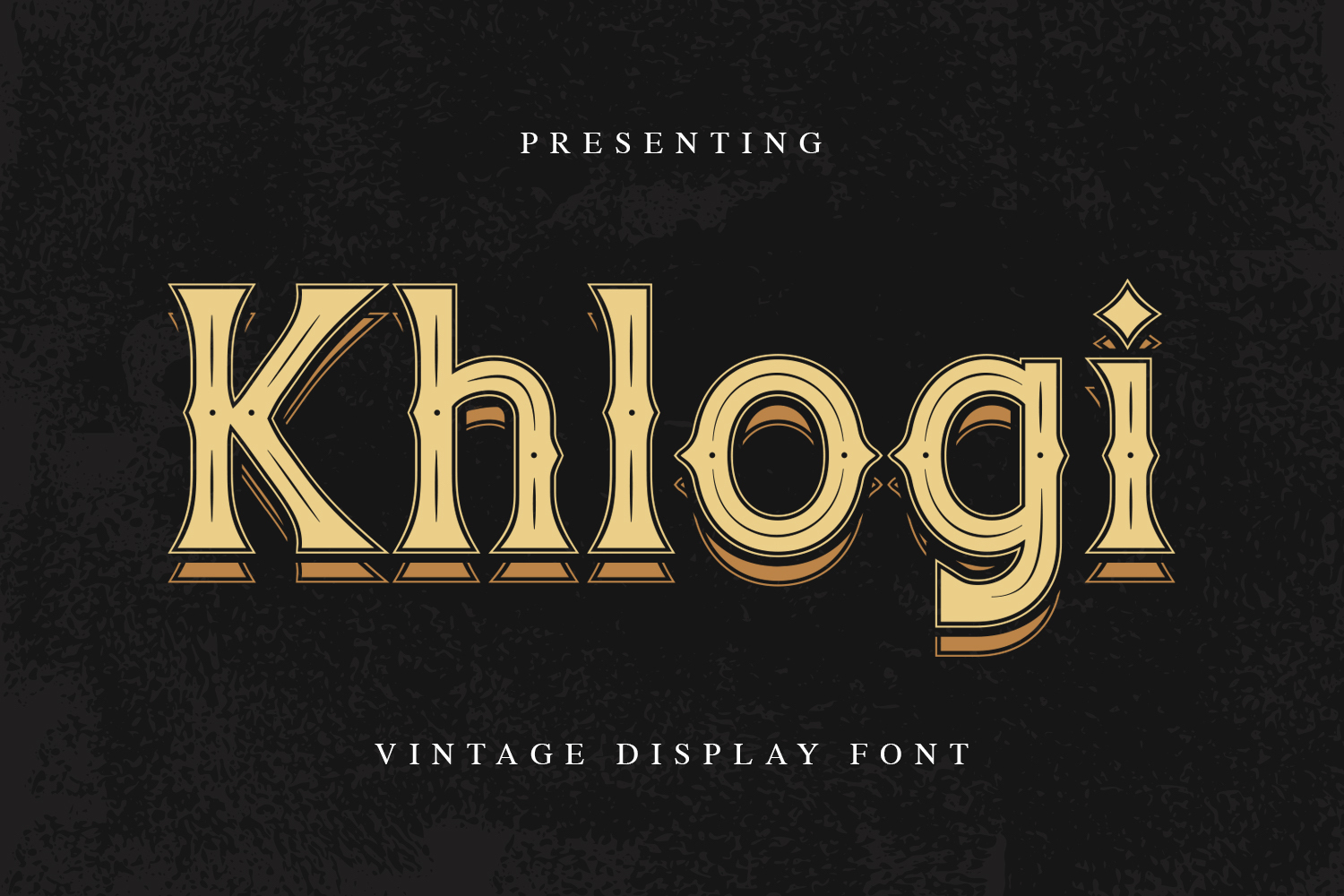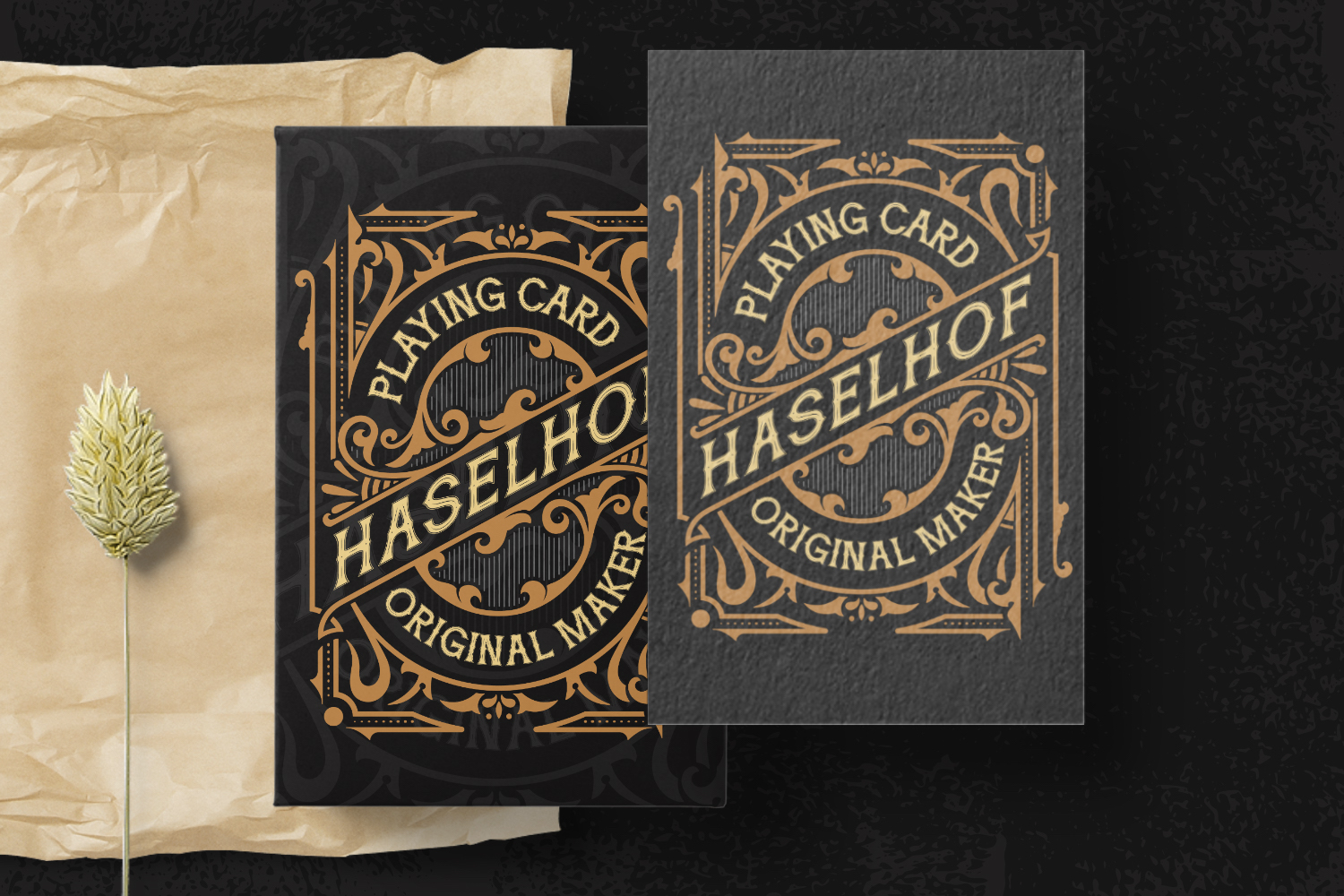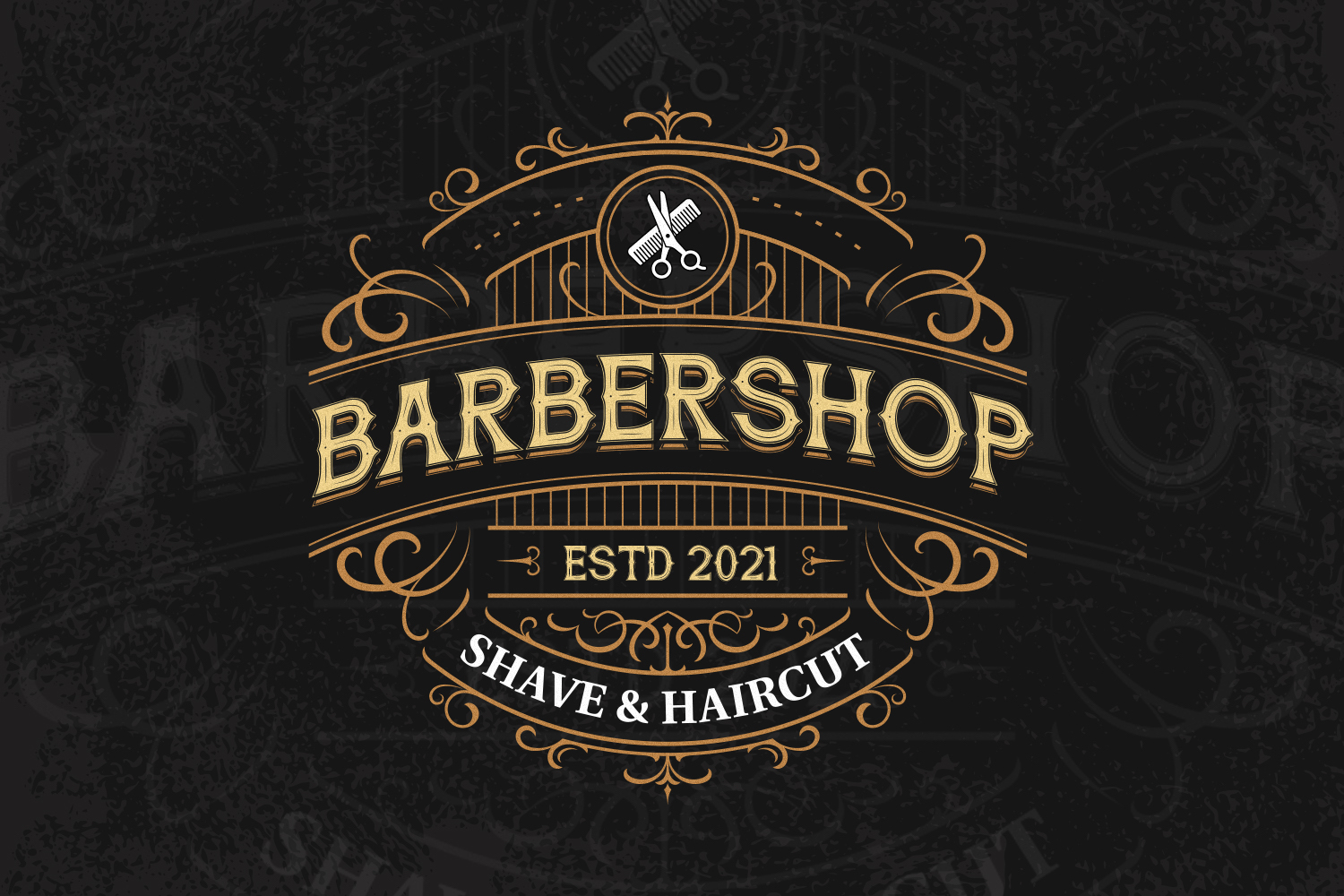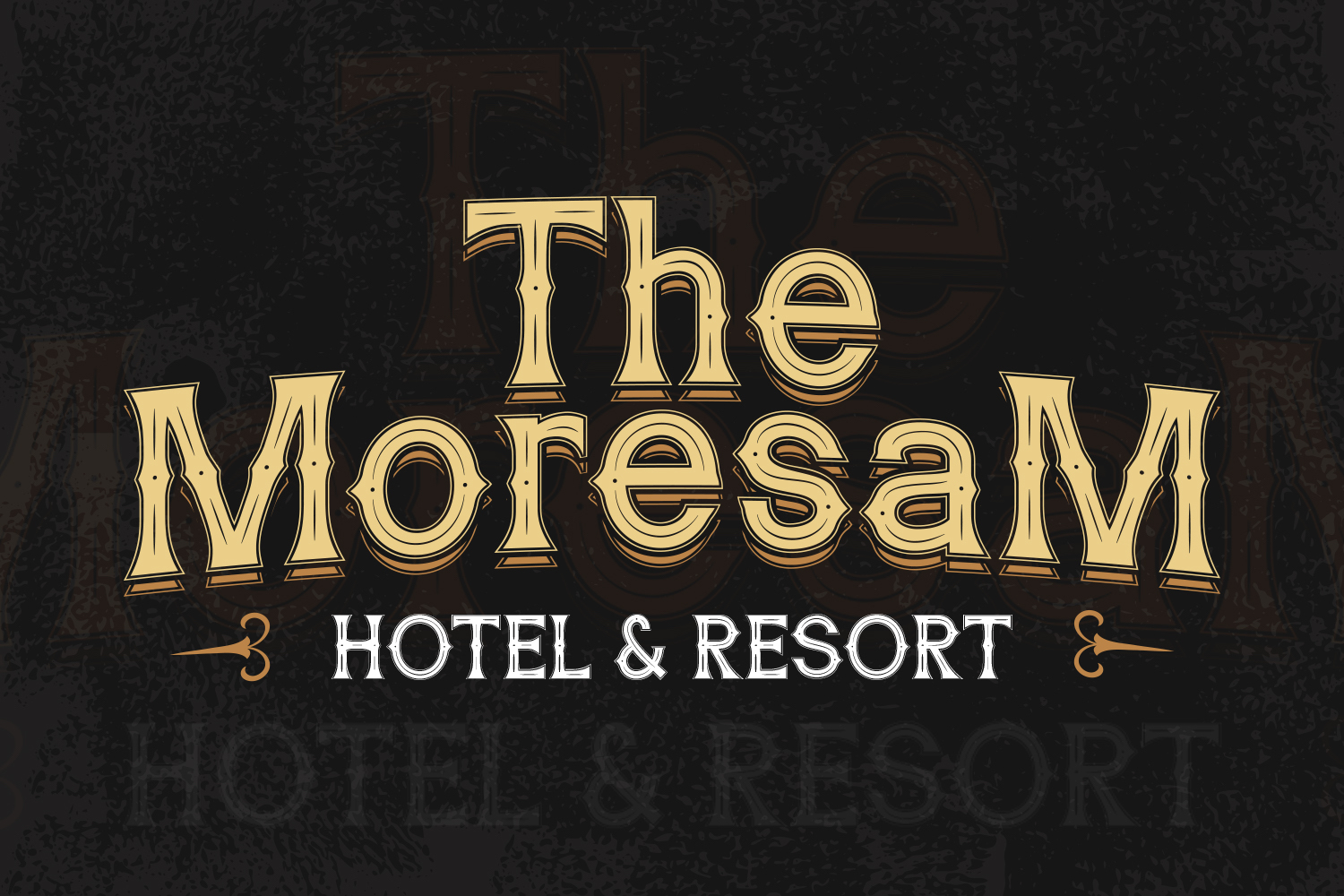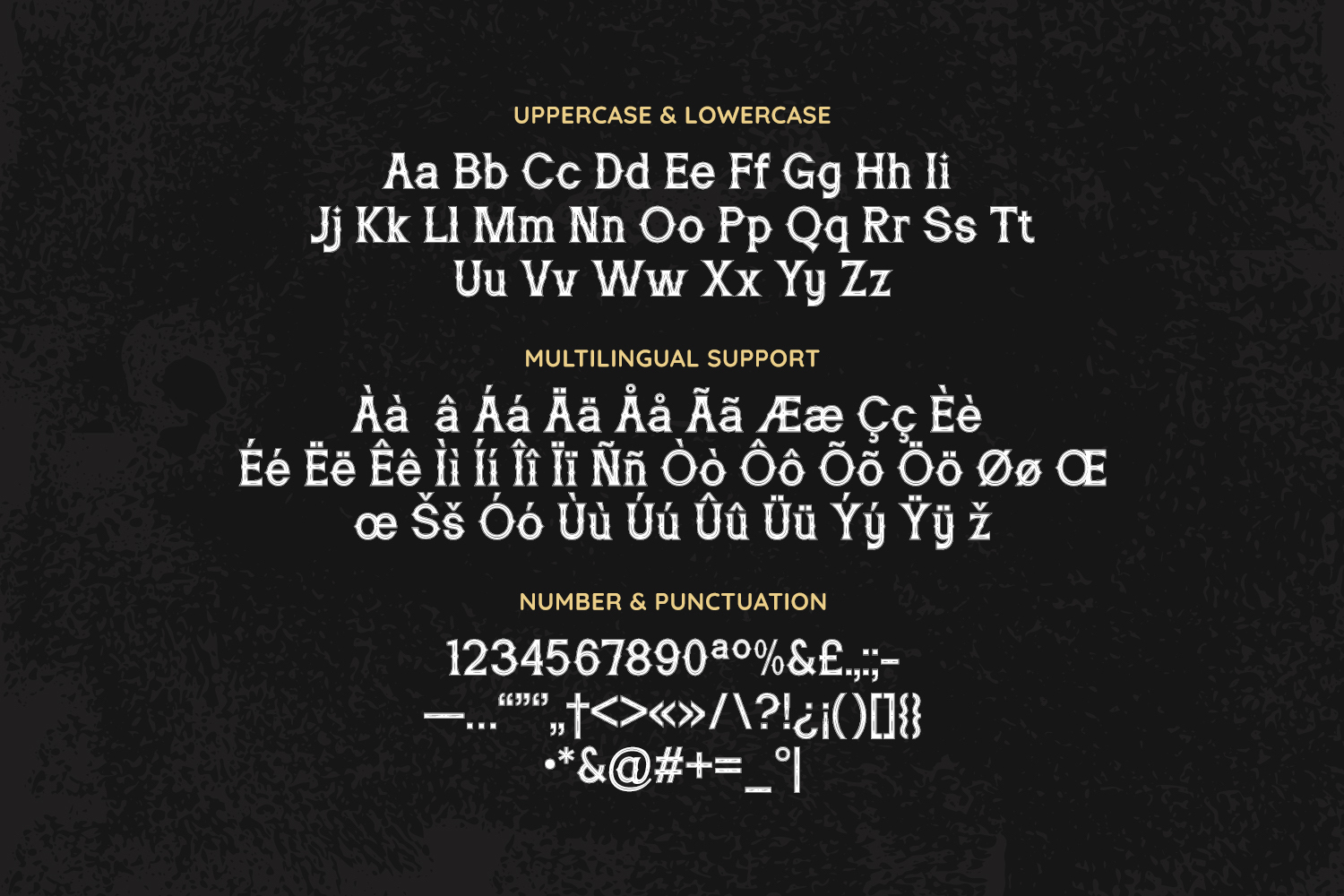
Khlogi is a bold and expressive vintage display font that merges ornamental charm with structured elegance. Each character is carefully crafted with stylized edges, inner detailing, and a layered shadow effect that adds dimension and heritage appeal. It draws inspiration from classic signage, art deco elements, and antique print design. Making it perfect for high-impact titles and nostalgic branding.
Ideal for barbershop logos, hotel identity, playing cards, and beverage labels, Khlogi offers multilingual support and a complete set of punctuation. Whether you’re aiming for a luxurious retro feel or a timeless traditional look, this typeface brings personality and authenticity to any creative project.
Khlogi